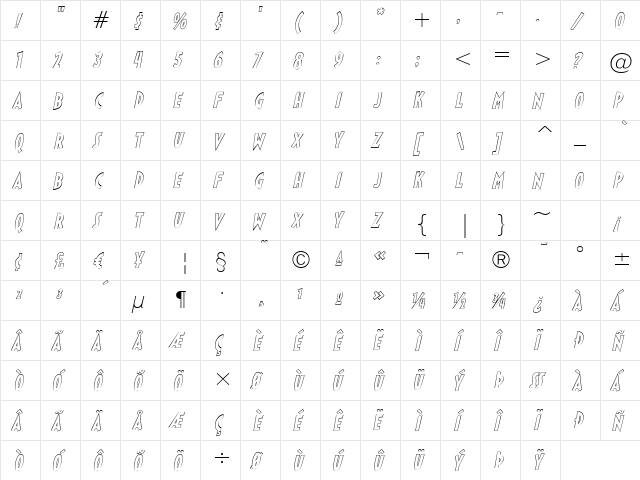
Sticky Moula BTN Outline Oblique
Design Context for Sticky Moula BTN Outline Typeface
Sticky Moula BTN Outline is built around its visual character rather than neutral utility — its distinctive forms are designed to make an impression at display sizes. Its italic angle brings a sense of urgency and motion to the letterforms.
Font Pairing: Pair with a clean neutral sans-serif for body copy to let Sticky Moula BTN Outline's character lead without overwhelming the composition.
Pro Tip: Use Sticky Moula BTN Outline exclusively at display sizes — it was designed to be seen, not read at length. Let a neutral companion handle body copy.